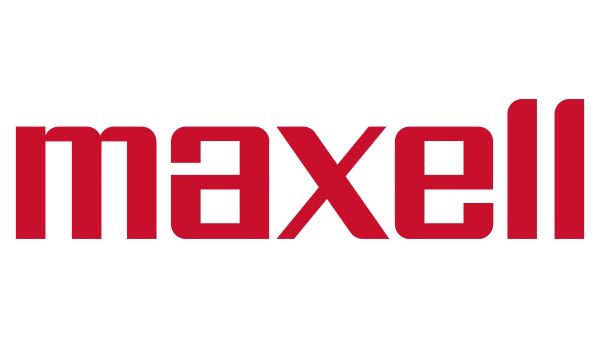
Maxell Font
What Font is Maxell?
Maxell font features a distinctive typeface, with the replica font BD ElMax faithfully recreating the original logo’s bold, angular letterforms that exude technological precision and retro-futuristic energy. The font’s sharp, geometric design with its characteristic angular cuts perfectly embodies Maxell’s legacy in audio and storage media, reflecting Japanese innovation, electronic excellence, and the brand’s iconic “Blown Away Guy” advertisement from the 1980s. Its striking visual identity conveys power, quality, and cutting-edge technology.
About Maxel
Maxell is a Japanese electronics company founded in 1960, originally as a subsidiary of Hitachi Maxell, Ltd. Headquartered in Tokyo, Maxell became renowned for manufacturing cassette tapes, batteries, and storage media. The brand gained cultural icon status through its legendary 1979 advertisement showing a man in a chair being “blown away” by powerful sound. Today, Maxell produces batteries, storage solutions, and electronic accessories, maintaining its reputation for reliability and innovation in consumer electronics.